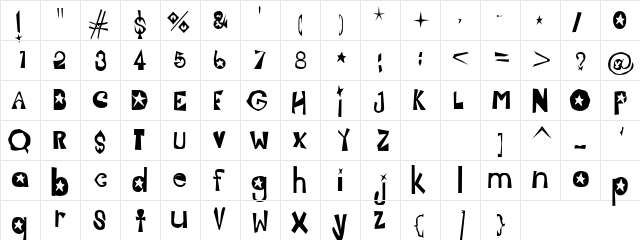
Mundane Regular
Design Context for Mundane Typeface
Mundane is a composed and adaptable typeface that performs quietly and consistently across a wide range of design contexts.